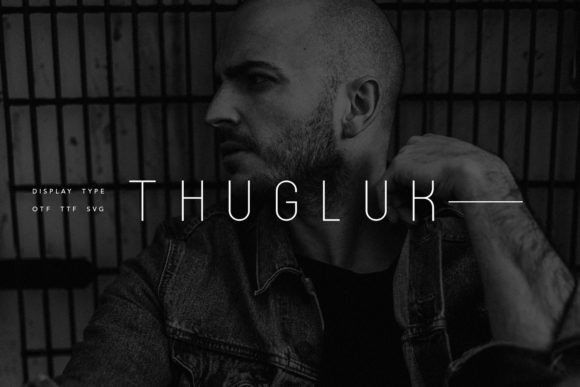
Delve into the world of Thugluk Font, a minimalist masterpiece born from the creative vision of BeeType. This exquisite sans serif font captivates with its sleek lines, delicate curves, and undeniable charm. Discover a font that transcends boundaries, effortlessly complementing an array of projects, from captivating TV displays to bold branding initiatives.
Thugluk Font is the epitome of versatility, a font that seamlessly adapts to your creative whims. Whether you're crafting striking headlines that demand attention or weaving intricate paragraphs that flow with grace, Thugluk Font rises to the occasion. Its thin and neat structure ensures clarity and readability, even at smaller sizes, making it the perfect choice for both digital and print endeavors.
Imagine your designs adorned with the elegance of Thugluk Font. Witness how its understated presence elevates your website, lending a touch of sophistication to your online presence. Unleash your creativity and craft social media posts that captivate your audience, leaving a lasting impression that sets you apart from the crowd.
Thugluk Font possesses an inherent charm that resonates with audiences, evoking a sense of intrigue and sophistication. Its minimal design invites closer inspection, revealing the intricate details and subtle nuances that make it a truly unique font. Experience the power of typography as Thugluk Font transforms your creative projects into captivating masterpieces.
Step into the realm of limitless possibilities with Thugluk Font. Let your imagination soar as you craft designs that exude elegance and sophistication. Embrace the versatility of this remarkable font and watch as your creative visions come to life with stunning clarity and impact.